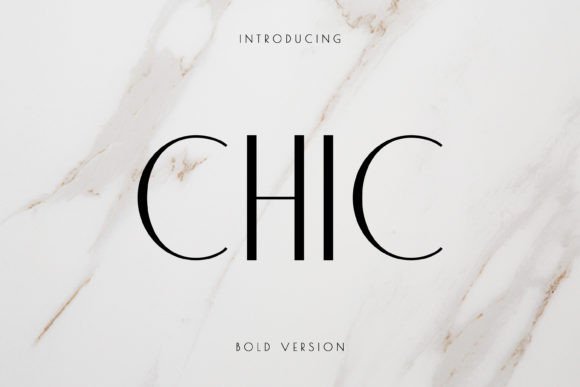
The Perfect Font for Your Next Design Project
You know that feeling when you’re staring at a blank page, trying to come up with the perfect font to match your design concept? It’s like searching for the perfect accessory to complete your outfit – you want something that elevates your entire look. For designers, finding the right font can be the key to unlocking a project’s full potential.
Enter Chic Font, a stunning sans serif typeface that embodies elegance and sophistication. Its sleek design effortlessly combines style with clarity, making it the perfect choice for logos, headings, and any project that demands a refined aesthetic. Whether you’re a seasoned designer or just starting out, Chic Font is a valuable addition to your toolkit, offering a timeless and tasteful appearance that’s sure to impress.
Key Features of Chic Font
- Font Family: Chic Font is a modern sans-serif font family designed for digital use.
- Character Set: The font family includes a wide range of characters, including Latin, Cyrillic, and Greek alphabets, as well as punctuation and symbols.
- Size: Chic Font is available in 4 different weights: Light (200), Regular (400), Medium (500), and Bold (700).
- Unique Characteristics: Chic Font features a clean and minimalist design, with a focus on legibility and readability in digital environments.
Chic Font Review
As a designer, I was excited to dive into the Chic Font, a modern sans-serif typeface designed to evoke sophistication and elegance. ✨ The font’s clean lines and sleek curves do indeed convey a sense of high-end style, making it perfect for luxury brands and fashion-forward projects.
Here are some of the things I love about the Chic Font:
- ✨ Versatility: Chic Font comes in multiple weights, from light to bold, allowing for a wide range of applications and design possibilities.
- ✨ Legibility: The font is highly legible, even at small sizes, making it suitable for body text, headlines, and titles.
- ✨ Aesthetics: The font’s unique design elements, such as the rounded edges and subtle flair on the ‘e’ and ‘a’ letters, add a touch of sophistication to any design.
- ⚠️ Limited language support: Chic Font only includes a basic Latin character set, which may limit its use in non-English projects.
- ⚠️ No variable font: Chic Font is not a variable font, which may make it more challenging to create smooth transitions between font weights.
Overall, I’m impressed with the Chic Font’s design and versatility. While it may have some limitations, it’s a solid choice for designers looking to add a touch of sophistication to their projects.
Practical Application Guide for Chic Font
Tips for Getting the Most Out of Chic Font
Here are some tips for using Chic Font effectively:
- Pair Chic Font with a bold font for contrast.
- Use Chic Font for headings and subheadings.
Chic Font is perfect for:
- Fashion and beauty branding.
- Luxury product packaging.
Alternatives to Chic Font
Playfair Display is an elegant, luxurious font that is ideal for creating a high-end feel in your designs. It features intricate details and flourishes that make it perfect for titles and headings. Compared to Chic Font, Playfair Display is more ornate and sophisticated, making it a better choice for projects that require a touch of luxury.
Montserrat is a modern sans-serif font that is perfect for creating a clean and minimalist look in your designs. It features a geometric design and is highly legible, making it ideal for body text and paragraphs. Compared to Chic Font, Montserrat is more straightforward and simple, making it a better choice for projects that require a clean and uncluttered look.
Didot is a classic serif font that is perfect for creating a sophisticated and elegant look in your designs. It features a refined and detailed design that makes it ideal for titles and headings. Compared to Chic Font, Didot is more formal and traditional, making it a better choice for projects that require a touch of sophistication and refinement.
Merriweather is a classic serif font that is perfect for creating a warm and inviting look in your designs. It features a traditional design with a subtle flair, making it ideal for body text and paragraphs. Compared to Chic Font, Merriweather is more traditional and classic, making it a better choice for projects that require a warm and approachable tone.